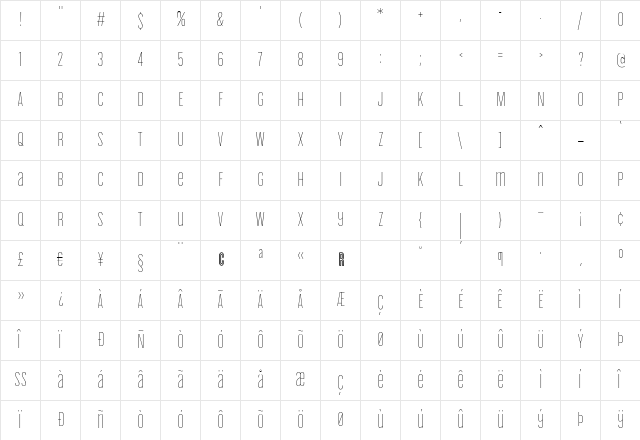
Cyclone Inline
Design Context for Cyclone Typeface
Cyclone is built around its visual character rather than neutral utility — its distinctive forms are designed to make an impression at display sizes.
Font Pairing: Pair with a clean neutral sans-serif for body copy to let Cyclone's character lead without overwhelming the composition.
Pro Tip: Use Cyclone exclusively at display sizes — it was designed to be seen, not read at length. Let a neutral companion handle body copy.